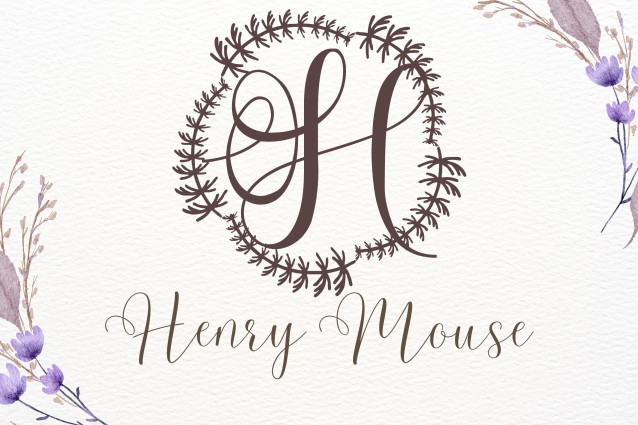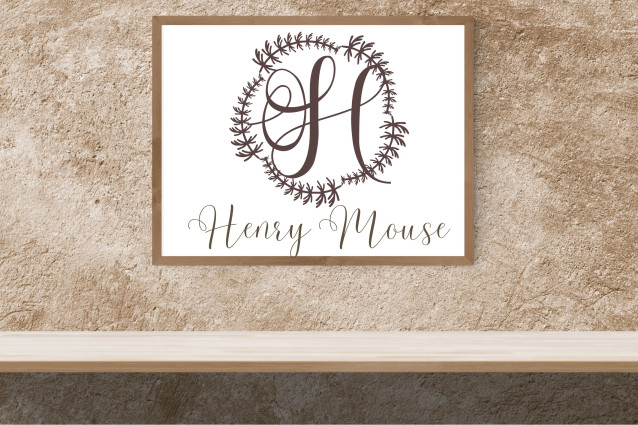
Leafenca Monogram Font
Leafenca Monogram Font is a refined display font featuring elegant uppercase initials adorned with delicate leaf and vine illustrations. Inspired by timeless botanical motifs, each letter in the set blends natural forms with classical structure—making it ideal for wedding stationery, boutique logos, packaging, and personalized gifts. Leafenca is your go-to monogram font for projects that call for nature’s touch wrapped in polished design.